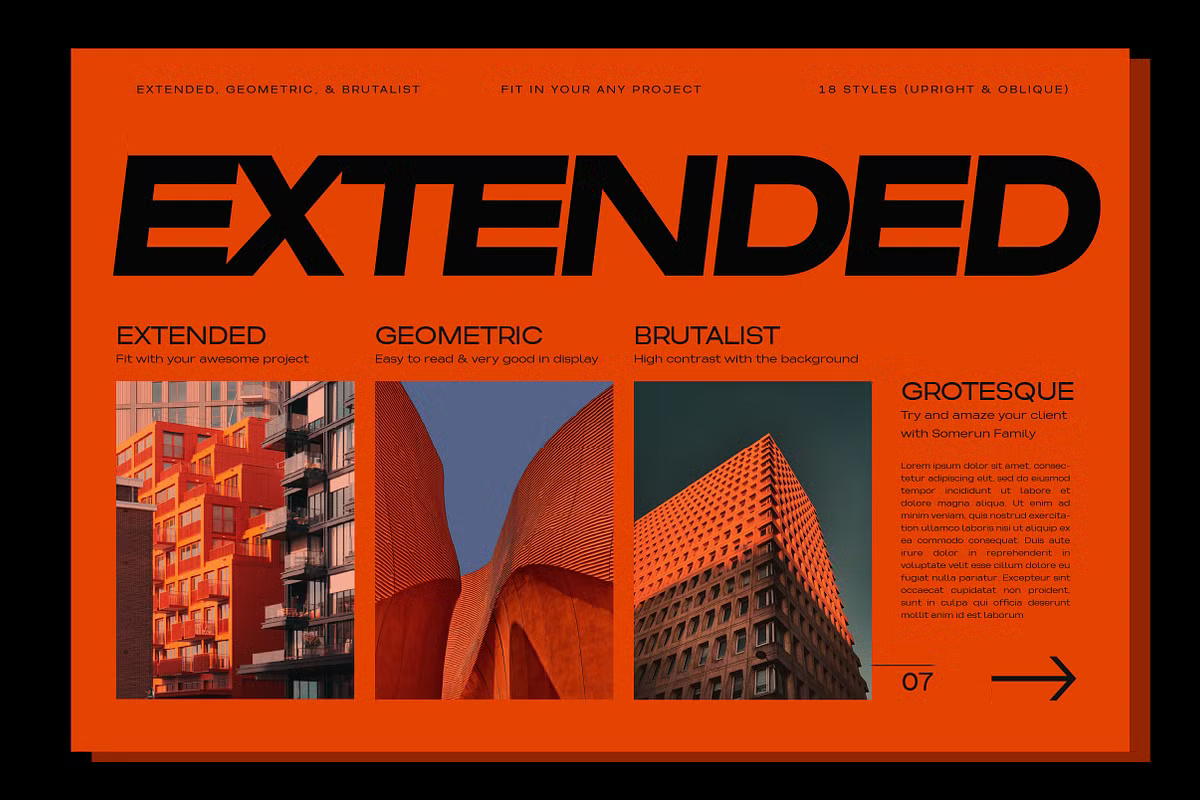
Somerun Font
Somerun is a sophisticated and versatile extended sans serif font that seamlessly blends elements of grotesque geometry and brutalist design. Crafted with precision, it offers exceptional legibility, neutrality, and expressiveness, making it a valuable asset for modern design projects. With a wide range of weights—from Thin to Extra Black—Somerun provides 20 distinct styles, including oblique versions.
This font also boasts an array of OpenType features, including seven stylistic alternates (A, R, Q, a, g, r, & y), five figure variants (superiors, inferiors, fractions, circled numerators), and four standard ligatures (fi, ff, fl, ffi, & ffl). Additionally, it supports an extensive range of Latin-based languages, ensuring accessibility for diverse typographic needs.
Designed for clarity and elegance, Somerun’s extended sans serif structure offers smooth, clean, and stylish lines, making it ideal for various applications. Whether used in fashion branding, print design, social media, signage, UI/UX typography, packaging, or editorial layouts, it enhances creativity while maintaining a contemporary aesthetic.